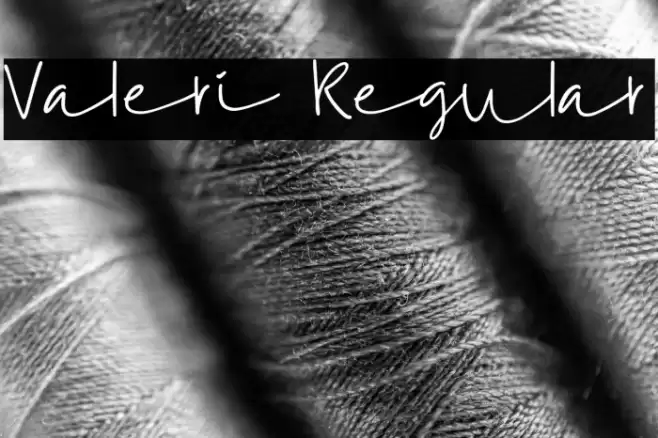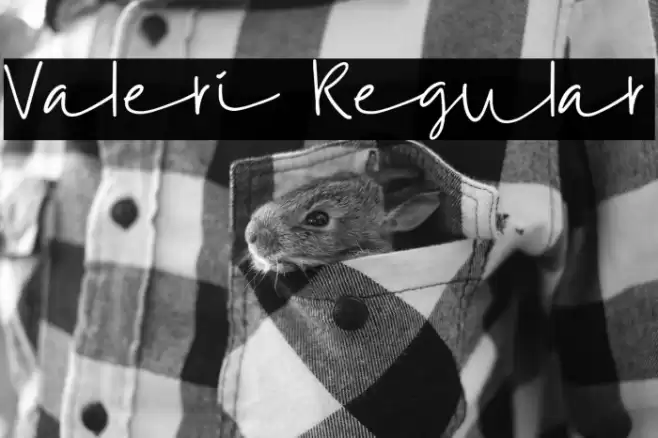
Valeri Regular Font
Valeri Regular Description
This font features a playful and casual handwritten style, characterized by its fluid and natural strokes. The letters are slightly slanted, giving it a dynamic and lively appearance. The uppercase letters are bold and prominent, while the lowercase letters maintain a consistent flow, enhancing readability. The numerals are distinct and easy to distinguish, with a slight variation in thickness that adds to the font's charm. Special characters are well-integrated, maintaining the overall aesthetic. This font is perfect for projects that require a personal touch, such as invitations, greeting cards, or creative branding.
A playful handwritten font with fluid, natural strokes and a casual style from Regular fonts.
- Font: Valeri Regular
- Proposed Projects: Ideal for invitations, greeting cards, personal branding, and creative projects.
- Overall Style: Casual
- Use Case: Headlines, Logos, Invitations